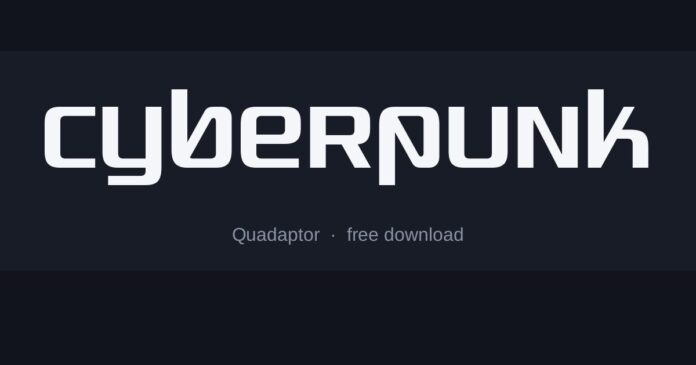
What font is the Cyberpunk 2077 logo?
The wordmark is a custom techno sans with angled cuts on the terminals and a very tight fit, set against the yellow that does as much brand work as the letters.
The in-game interface uses a different, cleaner condensed face, so screenshots will not always match the logo.
- Quadaptor is the closest — squared, technical and tightly fitted.
- Stormfaze is more aggressive with sharper angles, good for headings.
- Induction is wider and lighter, closer to the interface type than the logo.
Where the style comes from
The cyberpunk visual tradition runs back to the 1980s, when the future was imagined through the technology of the moment — segmented displays, terminal type and industrial signage — rather than through anything organic.
Angled cuts on the ends of strokes are the shorthand for that. They suggest a letter assembled from parts, which is the entire aesthetic in one detail.
Setting it well
- Yellow and black is the brand; almost any techno face reads correctly in those two colours
- Set it very tight, to the point where letters nearly touch
- Add a small glitch offset on one letter rather than distorting the whole word